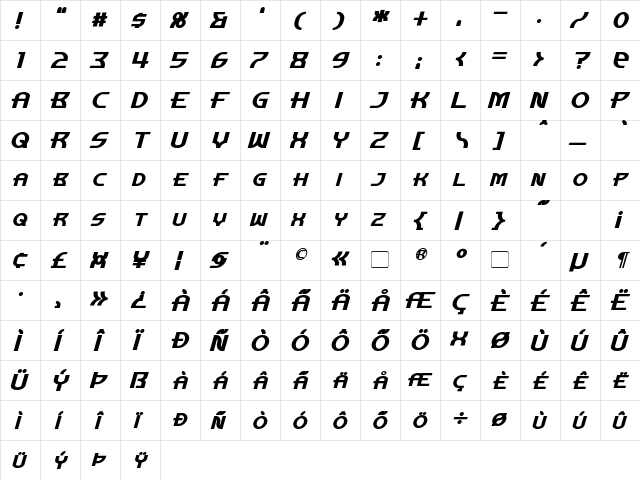
Manhattan Tower Bold Italic
| Foundry | Pixel Sagas |
| Designer | Neale Davidson |
Design Context for Manhattan Tower Typeface
Manhattan Tower offers clean, dependable letterforms without strong stylistic allegiance, making it a practical choice for designers who need flexibility. The dynamic lean of this cut emphasises speed and emphasis in any layout. Its bold stroke weight gives it real presence on the page.
Pro Tip: Use Manhattan Tower for emphasis, pull quotes, and subheadings where its slanted energy can add rhythm to the layout.